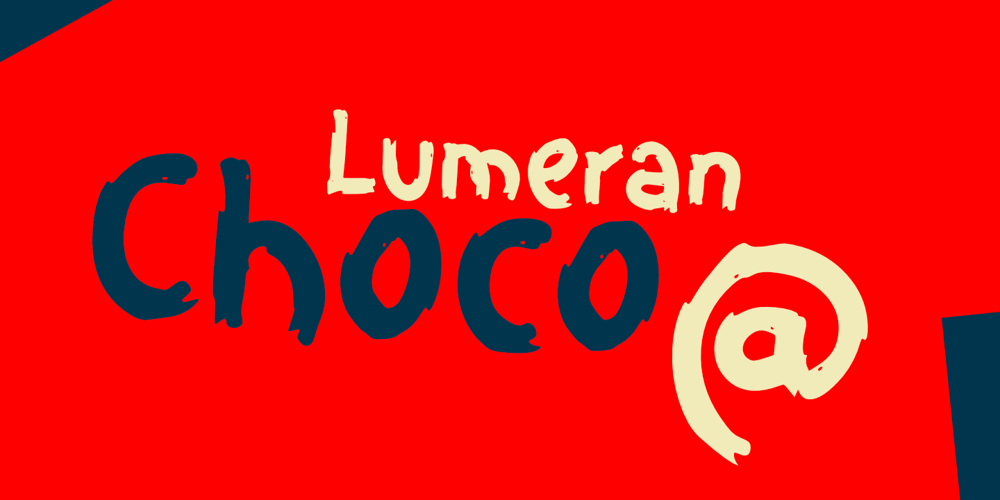
Lumeran Choco Font Family was designed by Wahyu Eka Prasetya, Afiat Sukmaraga and published by Hati. Lumeran Choco contains 1 styles and family package options. This font design radiates a warmth that feels like a handwritten note from a friend intimate, personal, and full of character. The curves are gentle, the lines fluid, reflecting a sense of ease and approachability. This is a font that doesn’t take itself too seriously, yet maintains a clarity that ensures every word is understood with clarity and ease!.